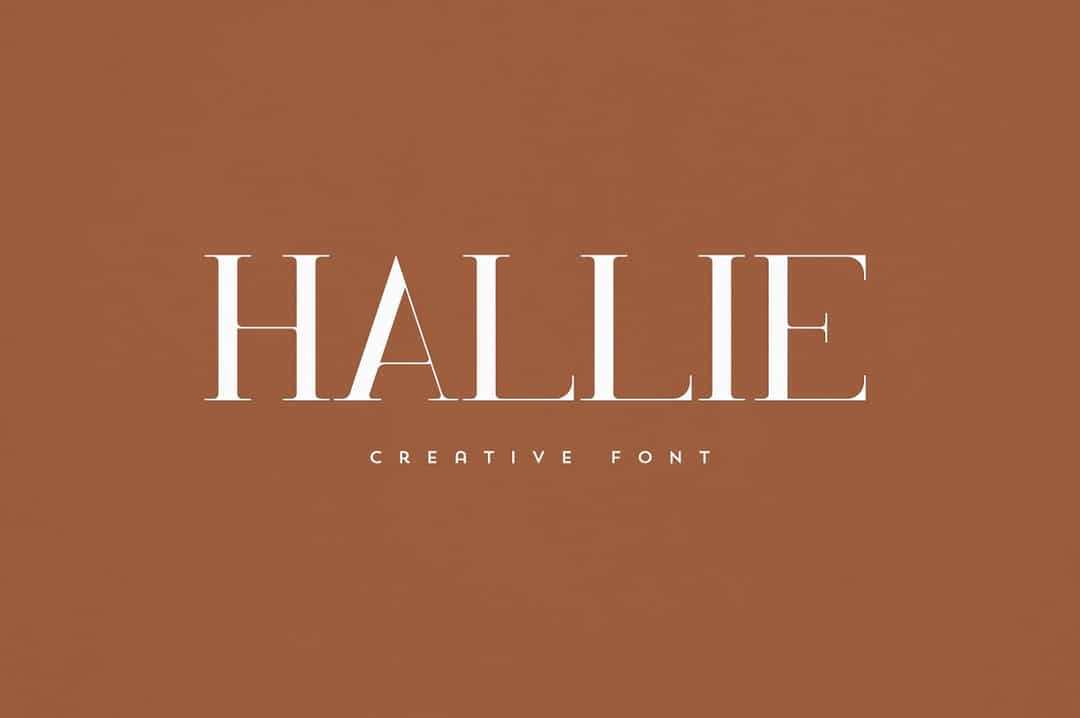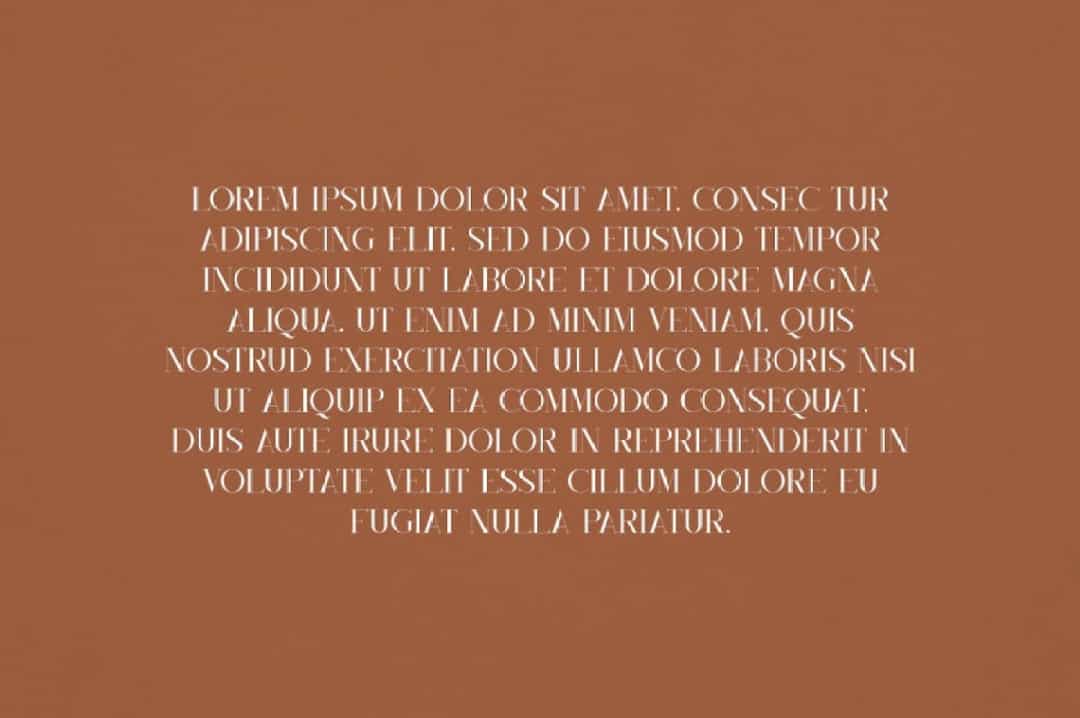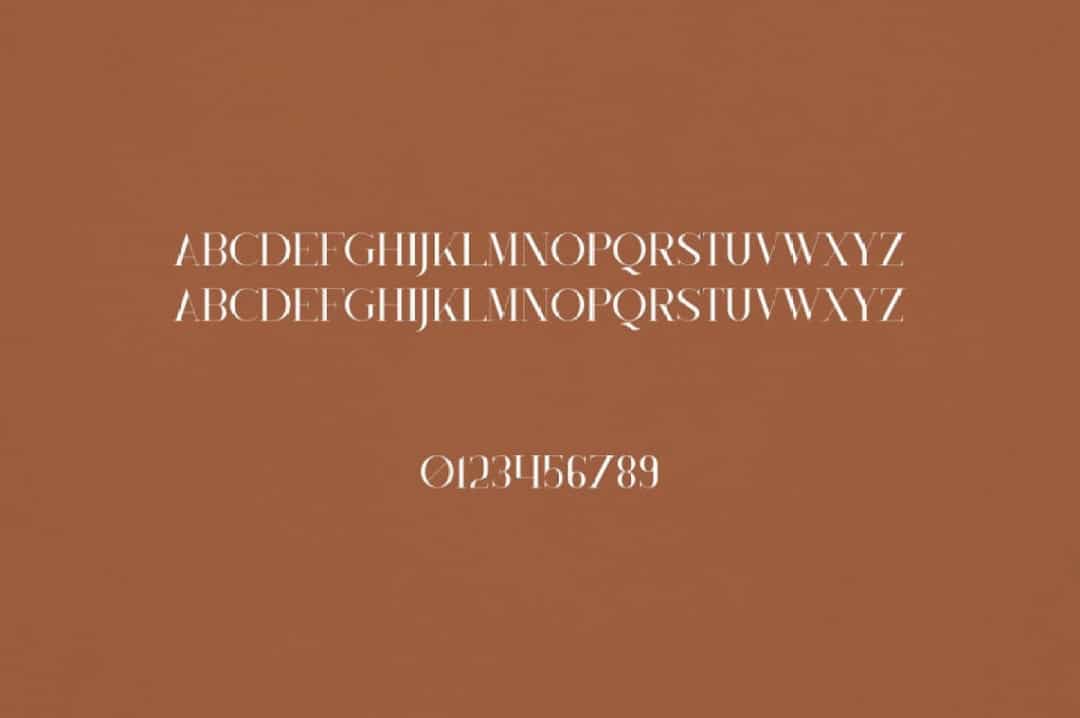
Hallie is an exquisite and flexible serif typeface that adds an impressive element to any typographic project. Perfect for headlines, logos, branding or simple text use – Hallie makes any typography truly standout! Additionally this font can also be used as an elegant text overlay on pictures for homeware designs, product packaging magazines or simply to add text overlay.